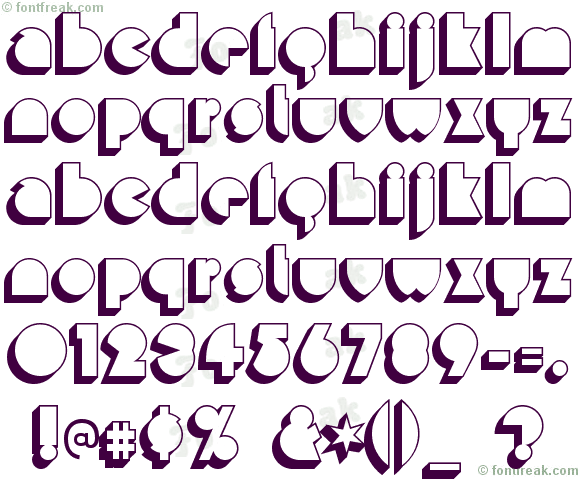
Misirlou Day
About Misirlou Day
Misirlou Day is a unique display typeface designed by Ray Larabie, characterized by its playful and whimsical style. This font falls into the decorative category, making it an ideal choice for projects that require a touch of creativity and flair. The visual characteristics of Misirlou Day include bold, irregular strokes that create a dynamic appearance. The stroke weight varies throughout the characters, adding a sense of movement and energy. The spacing is well-balanced, ensuring readability while maintaining an engaging aesthetic. Decorative elements are incorporated in the form of rounded edges and quirky letterforms, which contribute to its overall charm.
This font is well-suited for a variety of use cases. It can be effectively utilized in wedding invitations, where its playful nature can evoke joy and celebration. Additionally, it works wonderfully for movie posters, lending an air of excitement and intrigue. Restaurant menus can benefit from the unique character of Misirlou Day, helping to create a memorable dining experience. Furthermore, it can be used in promotional materials for events or festivals, capturing the attention of potential attendees.
What sets the Misirlou Day font apart is its distinctive character and versatility. Its ability to convey a sense of fun while remaining functional makes it an excellent addition to any designer's toolkit. For those looking to explore its potential, the Misirlou Day font free download is readily available, inviting creativity and innovation in every use.